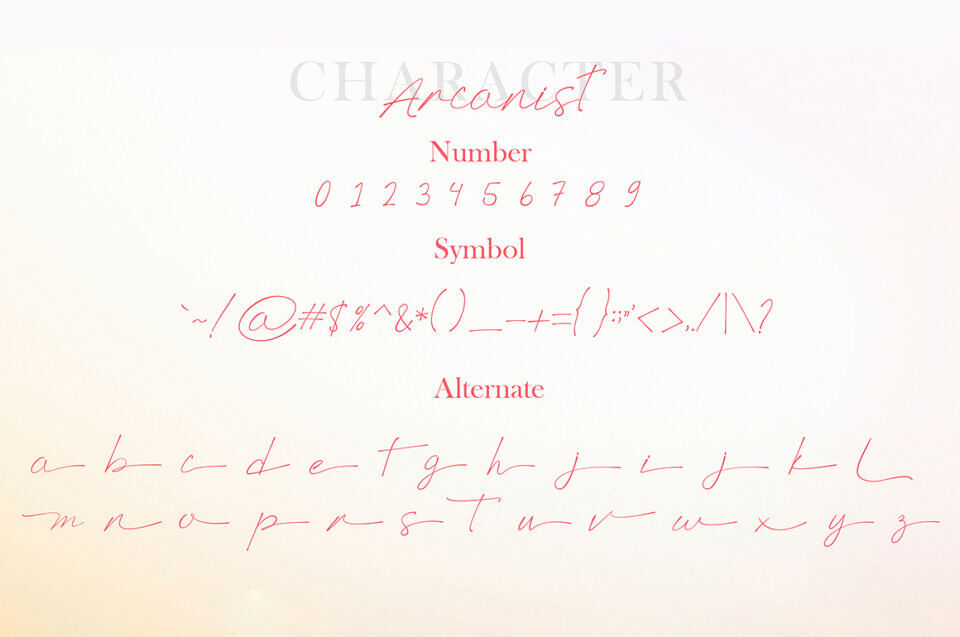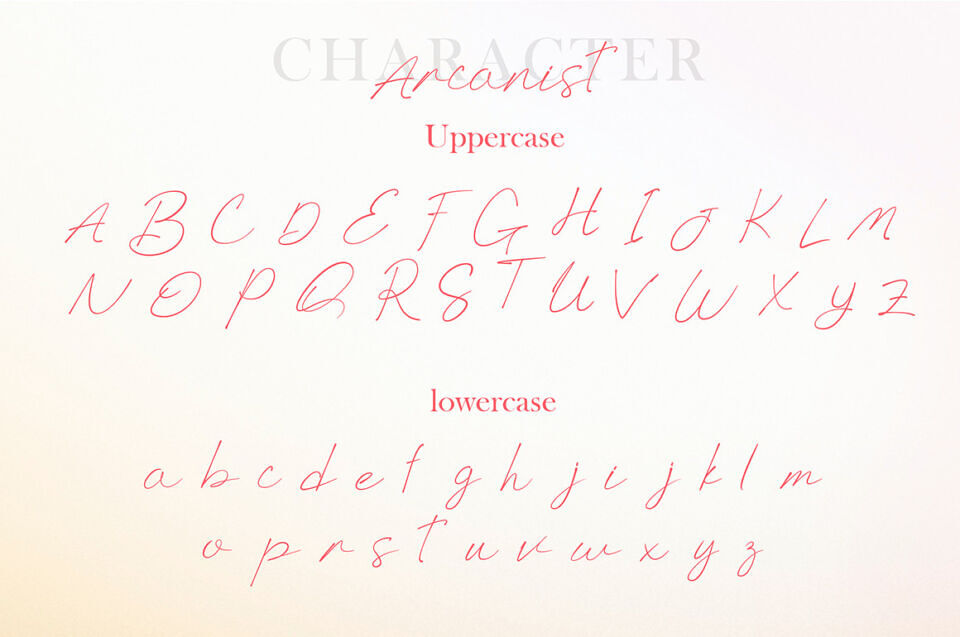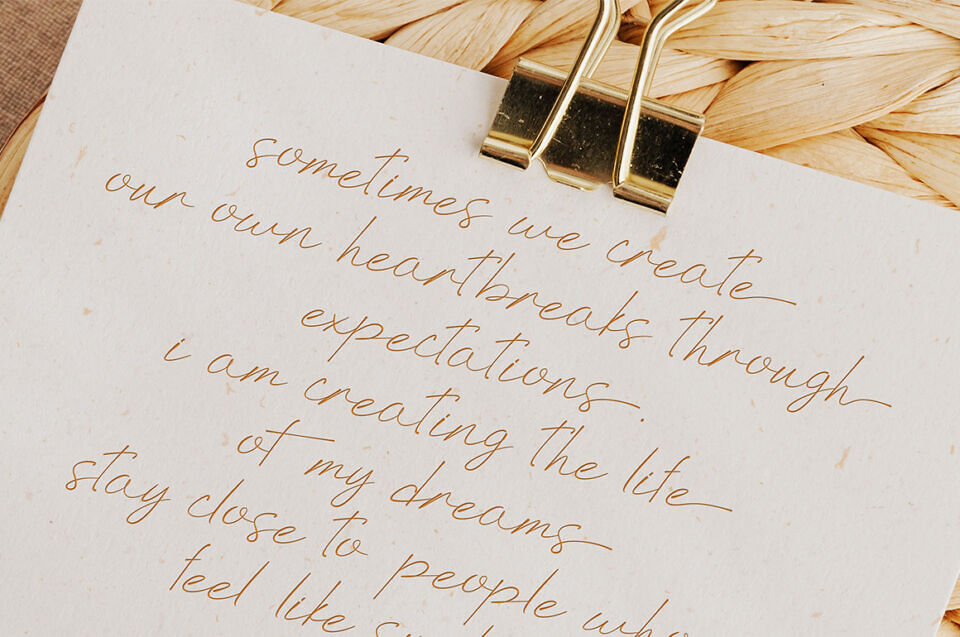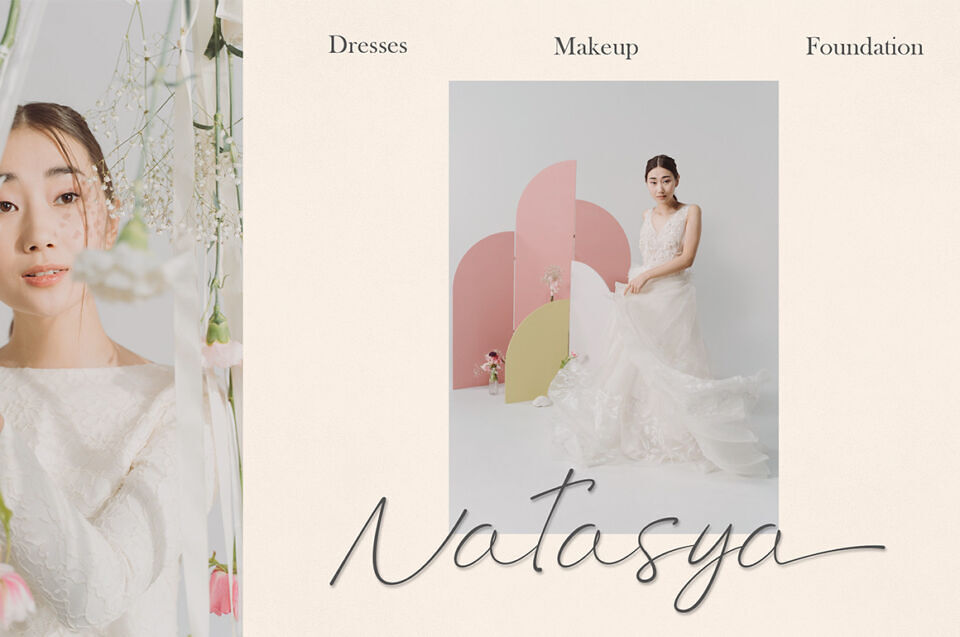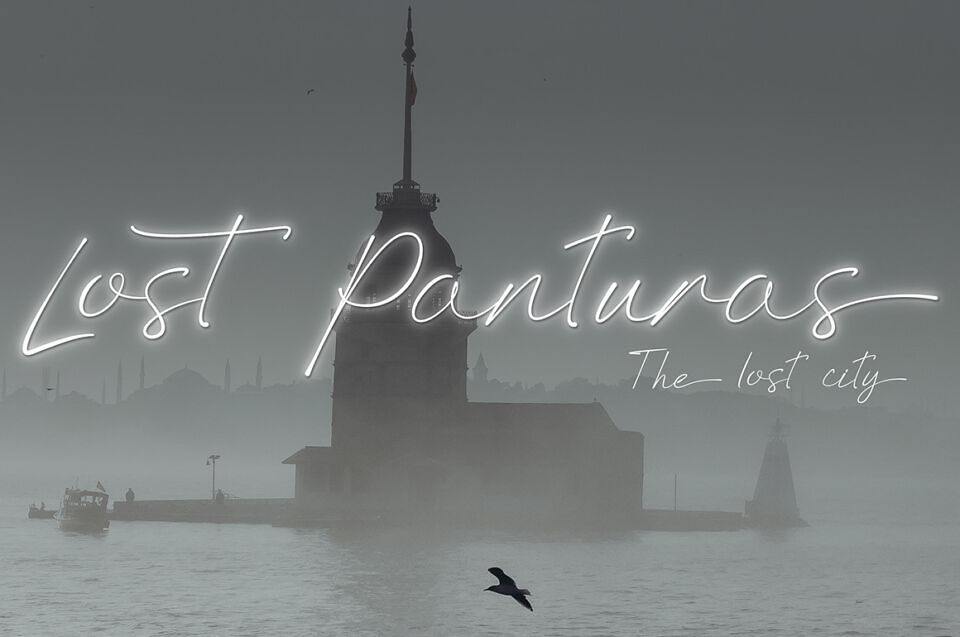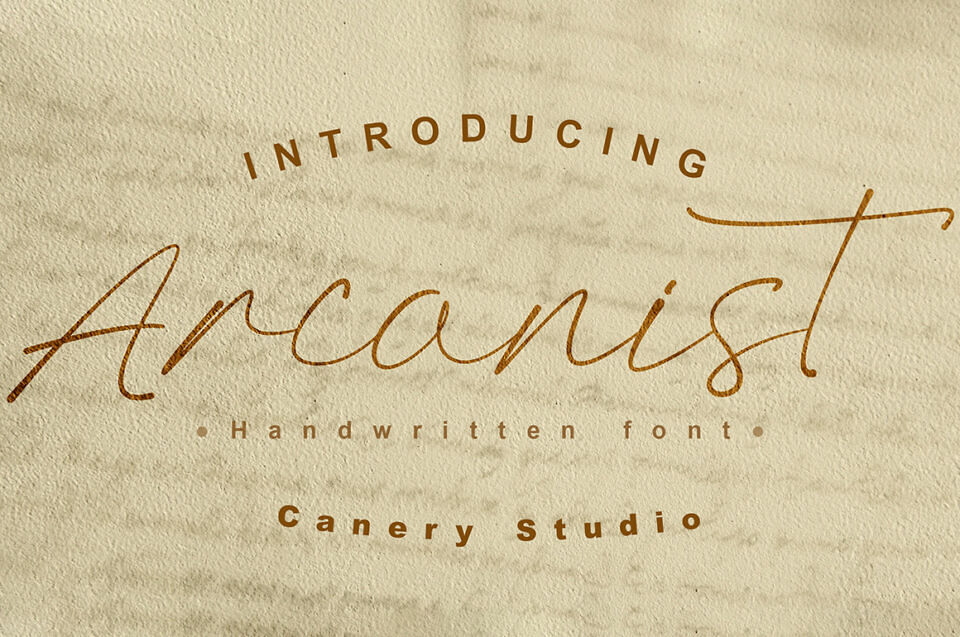
Arcanist Font
Arcanist is a script font that has beautiful letter endings such as dancing hand strokes to end sentences. This font is suitable for print designs, flyers, and other designs. This typeface comes with an elegant and romantic nuance to make your creation more simple, elegant, and unique.